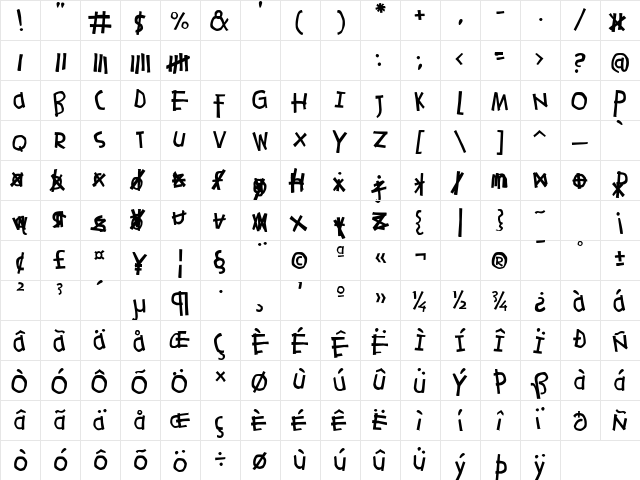
AlexieLL Regular Font Preview
AlexieLL Regular
AlexieLL Regular Font Details
Design Context for AlexieLL Typeface
AlexieLL is a composed and adaptable typeface that performs quietly and consistently across a wide range of design contexts.